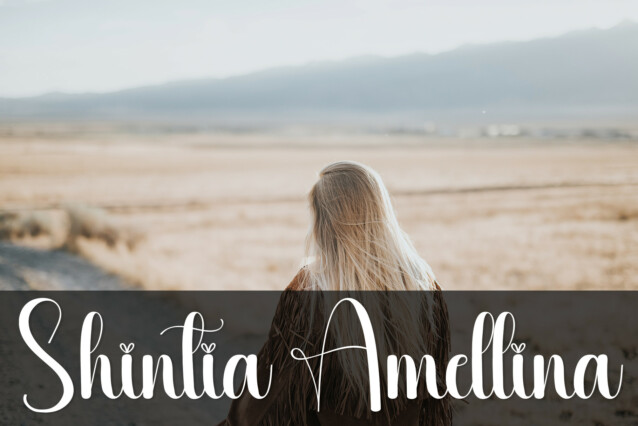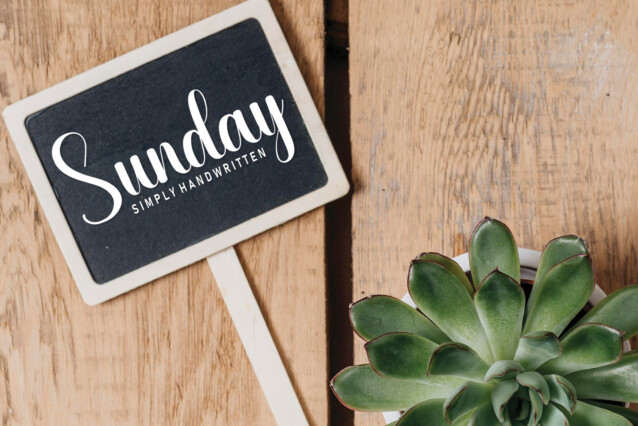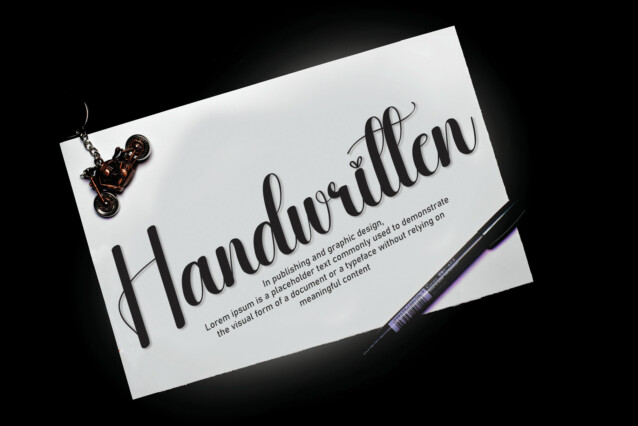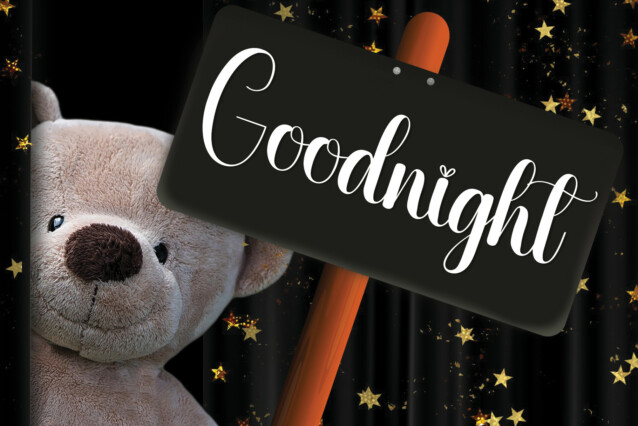
Preparation Script Font
Preparation Script Font is a unique and elegant handwritten font. It looks beautiful on a variety of designs requiring a personalized style, such as wedding invitations, thank you cards, weddings, greeting cards, logos and so on.